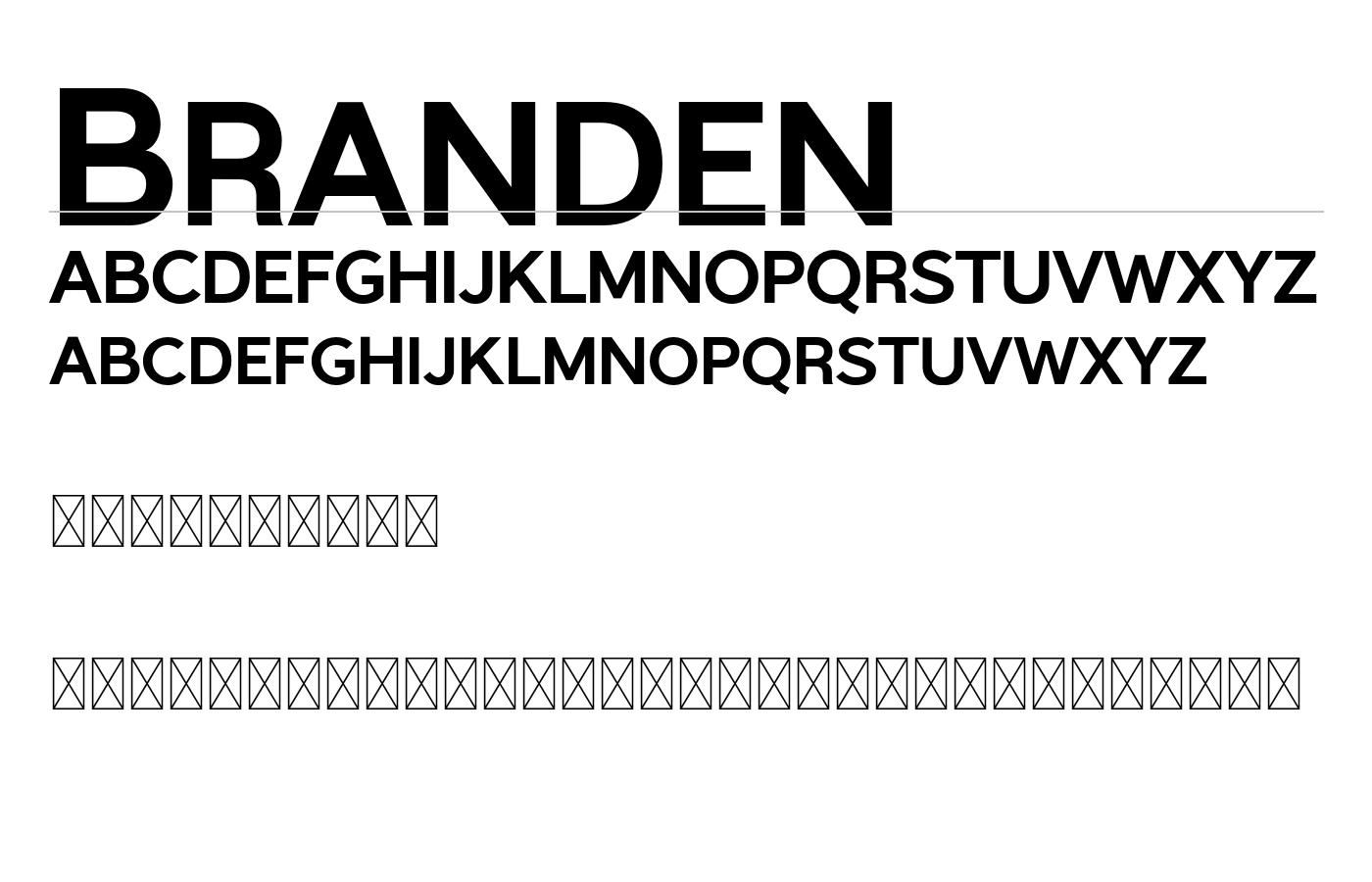
Branden is a bold, sans-serif font with a clean, modern look characterized by strong geometric shapes and even stroke weight. Its tall x-height and wide letterforms make it highly readable and impactful, ideal for headlines, branding, and editorial use where a confident yet approachable style is needed. This font works well for contemporary designs seeking clarity and strength without sacrificing a polished, professional feel.
Branden Font